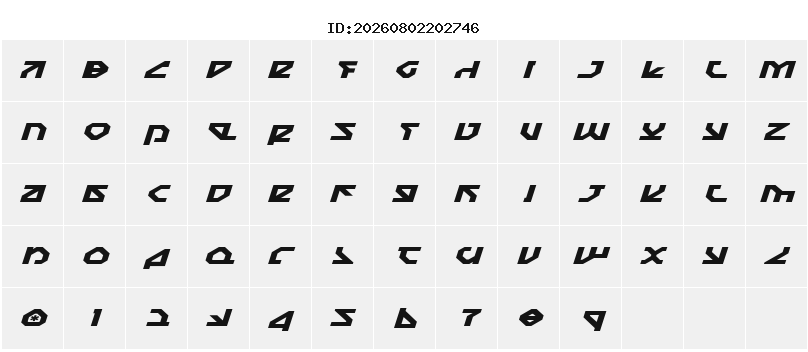
Nostromo Expanded Italic Preview
• Font Name: Nostromo Expanded Italic
• Font Style: Expanded Italic
• Full Font Name: Nostromo Expanded Italic
About Nostromo Expanded Italic.ttf
Nostromo Expanded Italic.ttf is a modern, elegant sans-serif font designed for ultimate readability and visual harmony. Perfect for branding, headlines, web design, and print materials.